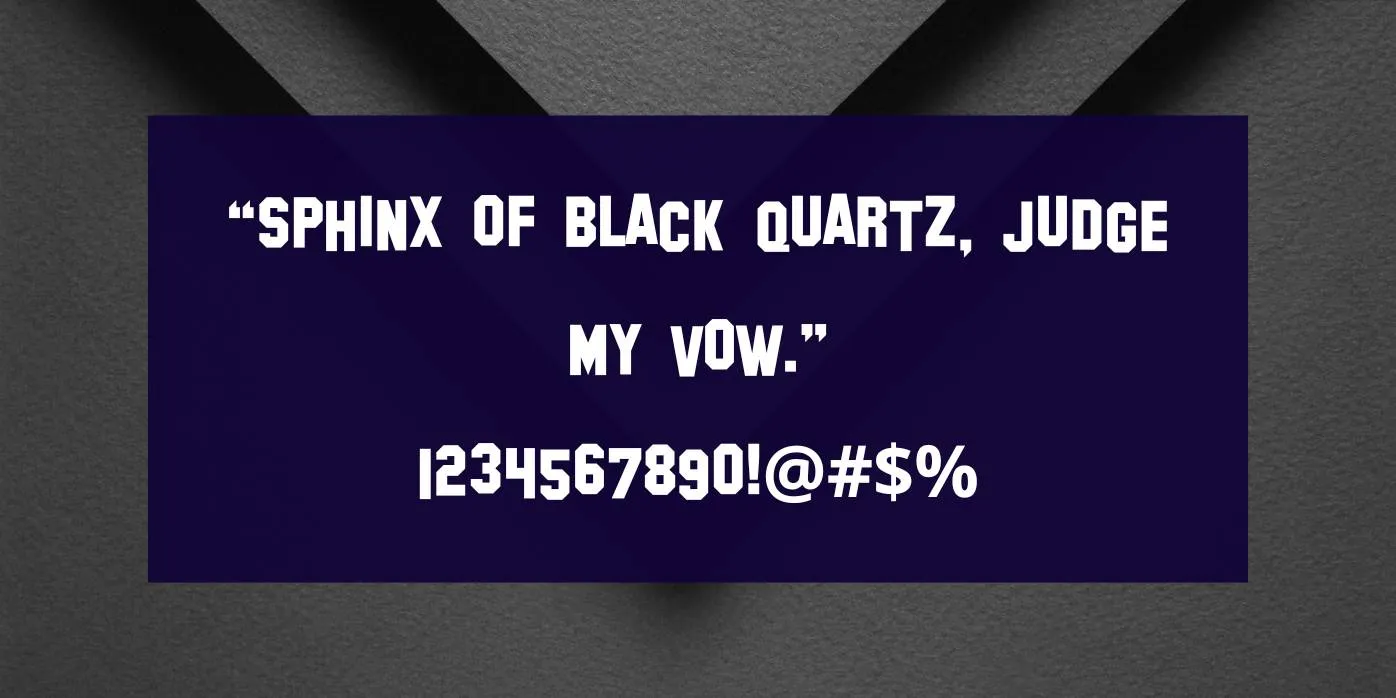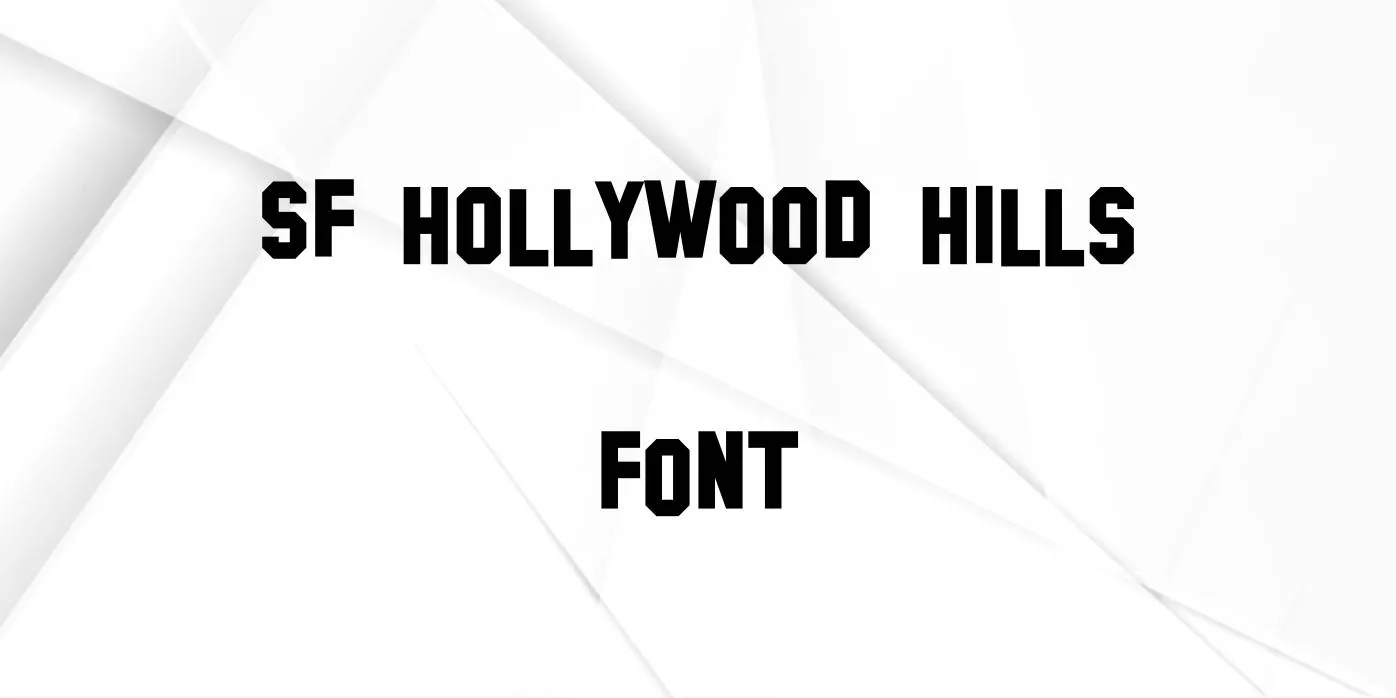
Sf Hollywood Hills Font
You are going to read about the fancy type of font. Sf Hollywood Hills Font is the designer of this typeface. ShyFonts is the designer of this typeface. There are 84 amazing glyphs for this typeface. The characters of this typeface are bold, playful, and highly readable.
They contain all uppercase letters, lowercase letters, numbers, and 14 special characters. There are 8 different styles for this typeface. They are Regular, Bold, Italic, Bold Italic, Condensed, Condensed Italic, Extended, and Extended Italic. You can get this typeface from our website in OpenType font and TrueType font formats.